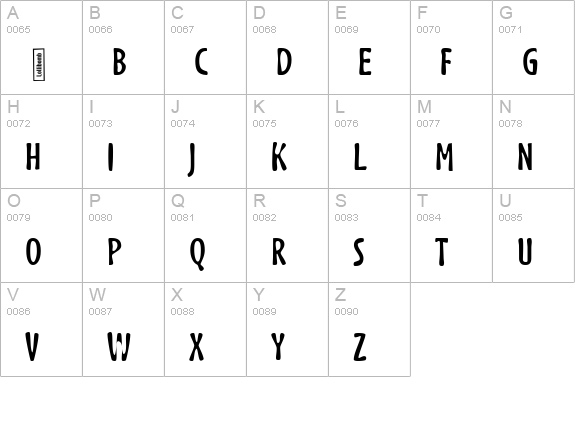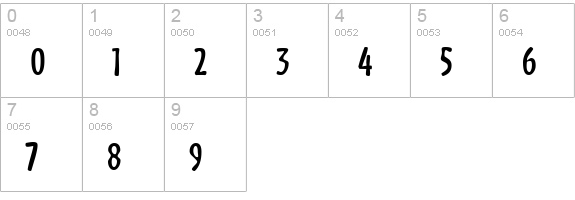
Cafecoco Bold Font Details
Cafecoco Bold is a strong, high-contrast variant in the Cafecoco typeface family \xE2\x80\x94 well suited to headlines, attention-grabbing titles, and strong calls-to-action.
Introducing Cafecoco Bold Font, a versatile and expressive typeface that will elevate your designs to new heights. This font exudes confidence and strength, making it perfect for bold headlines, captivating logos, and eye-catching posters. Cafecoco Bold Font is the epitome of modernity and sophistication. Its sleek and streamlined design captures attention effortlessly, ensuring that your message will be conveyed with impact. Whether you're creating a professional presentation, designing a stylish website, or crafting stunning social media posts, this font is guaranteed to make a lasting impression. What sets Cafecoco Bold Font apart is its seamless ability to adapt to any project. With its strong presence and refined letterforms, it brings a sense of elegance and professionalism to your designs. Its versatility allows it to seamlessly transition from a sophisticated corporate identity to a trendy fashion brand logo, ensuring that it will always be a valuable asset in your design toolbox. But here's the best part - Cafecoco Bold Font is completely free! That's right, you can download this fantastic font at absolutely no cost from FontsMarket.com. We believe in empowering designers and making high-quality resources accessible to all, which is why we are thrilled to offer this exceptional font as a free download. So, whether you're a seasoned designer looking to add a touch of sophistication to your next project or a beginner exploring the world of typography, Cafecoco Bold Font is the perfect choice. With its modern aesthetic, versatility, and the fact that it's freely available to download at FontsMarket.com, there's no reason not to give your designs the bold and captivating edge they deserve. Elevate your typography game and make a statement with Cafecoco Bold Font today!